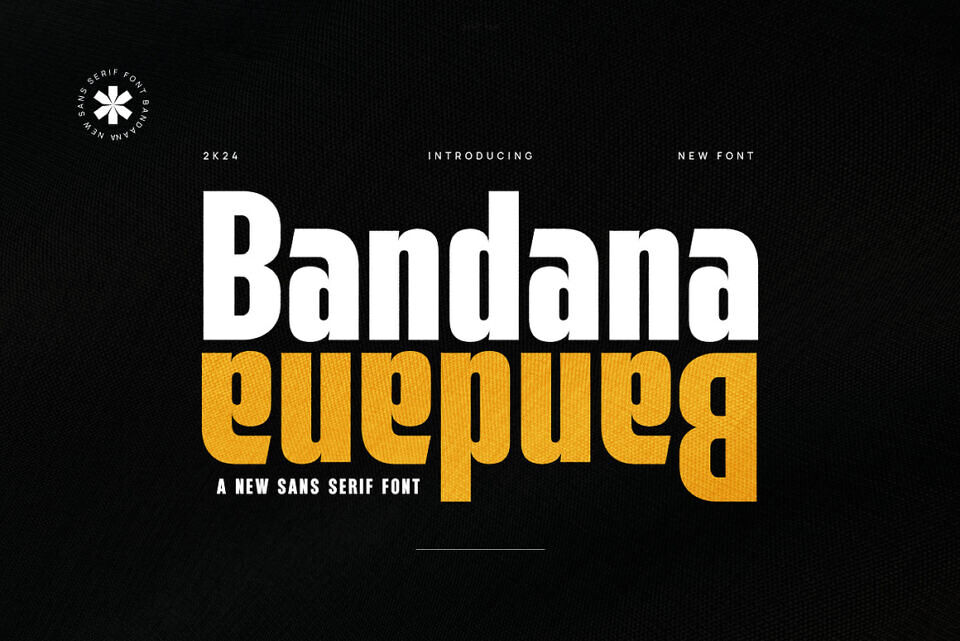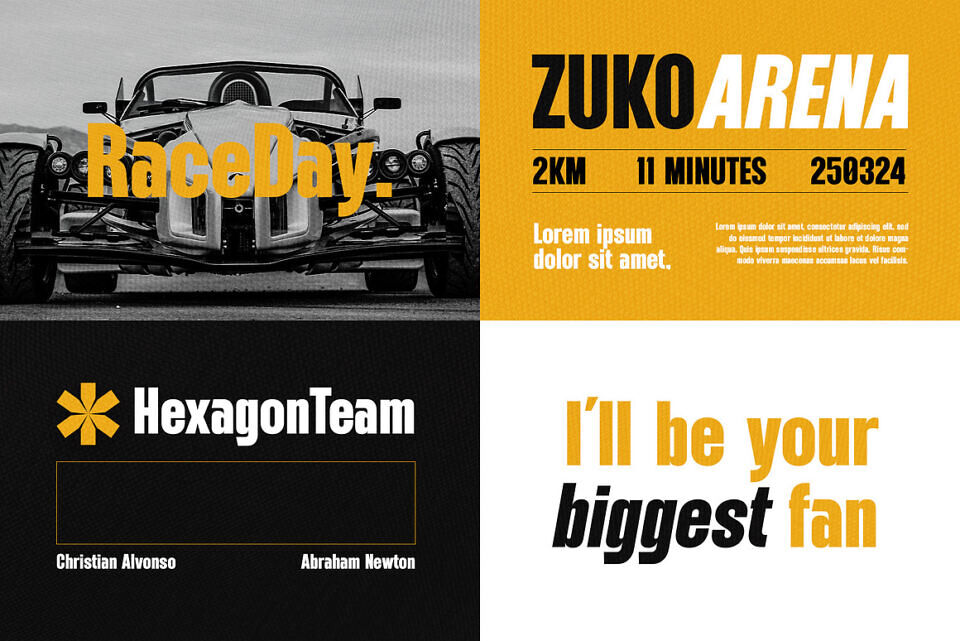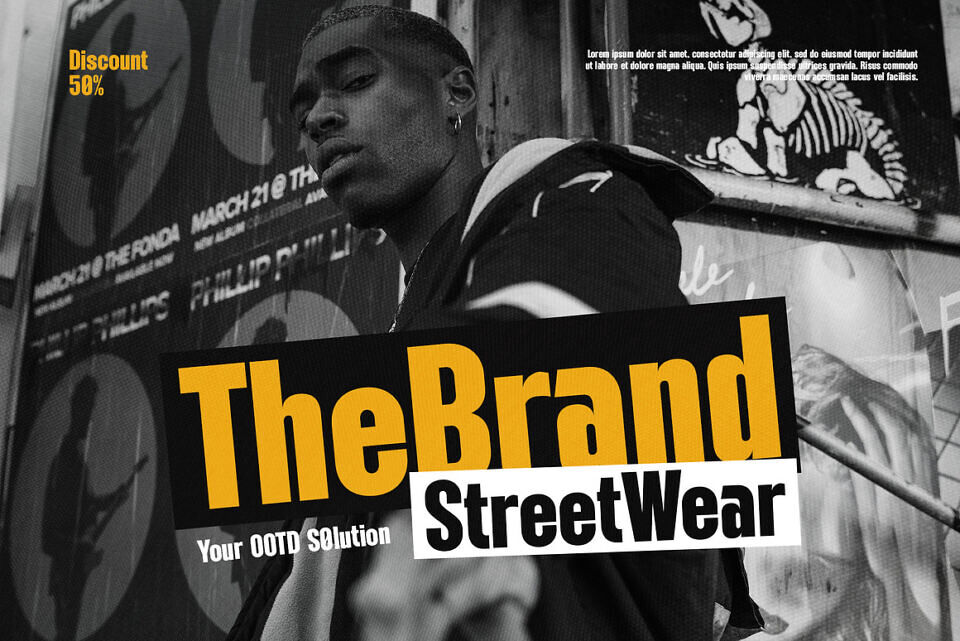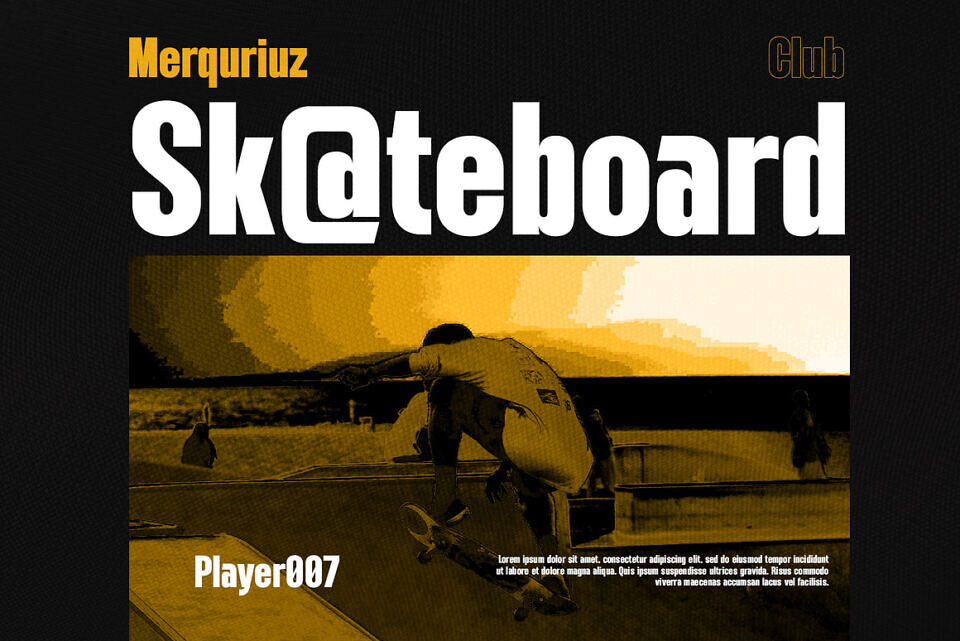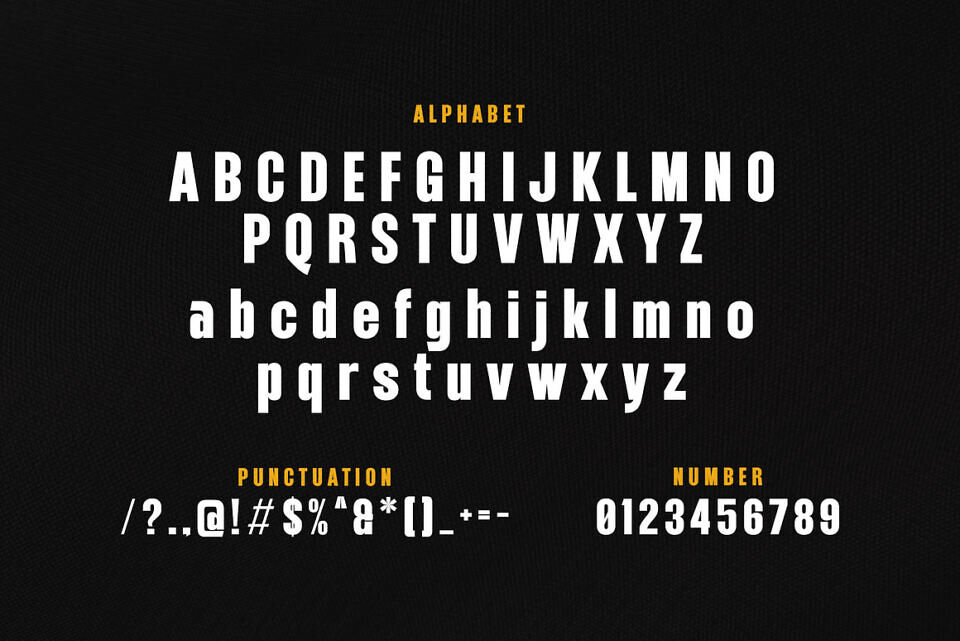
Introducing our new Bandana, modern sans serif font with elegant style this is perfect for branding, logos, invitation, magazines, product packaging and more.